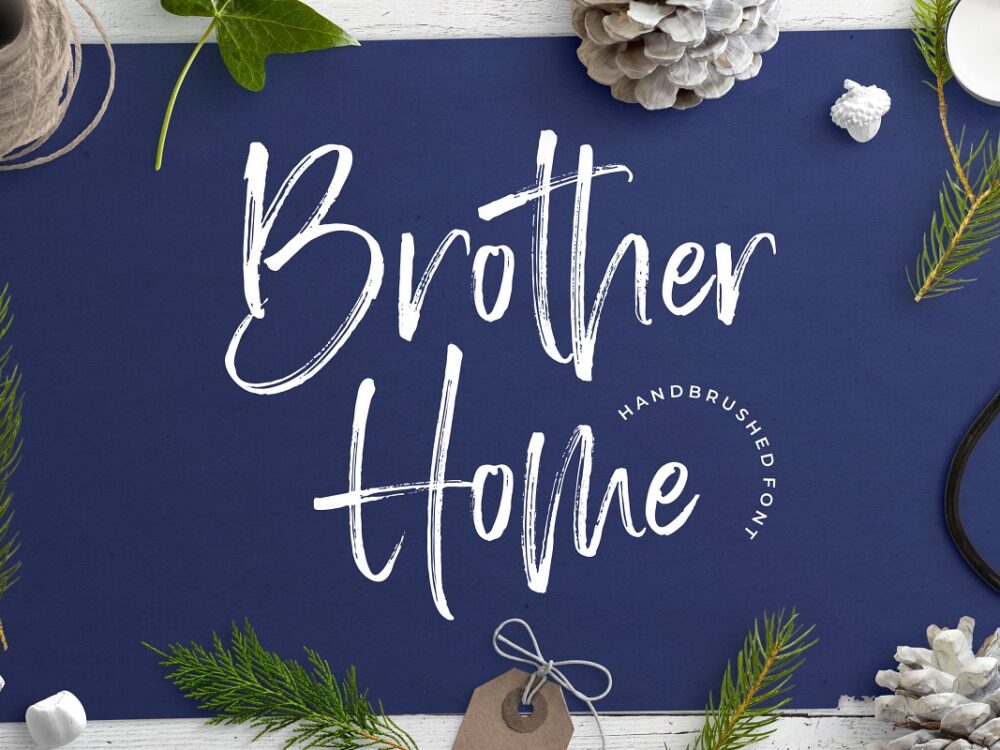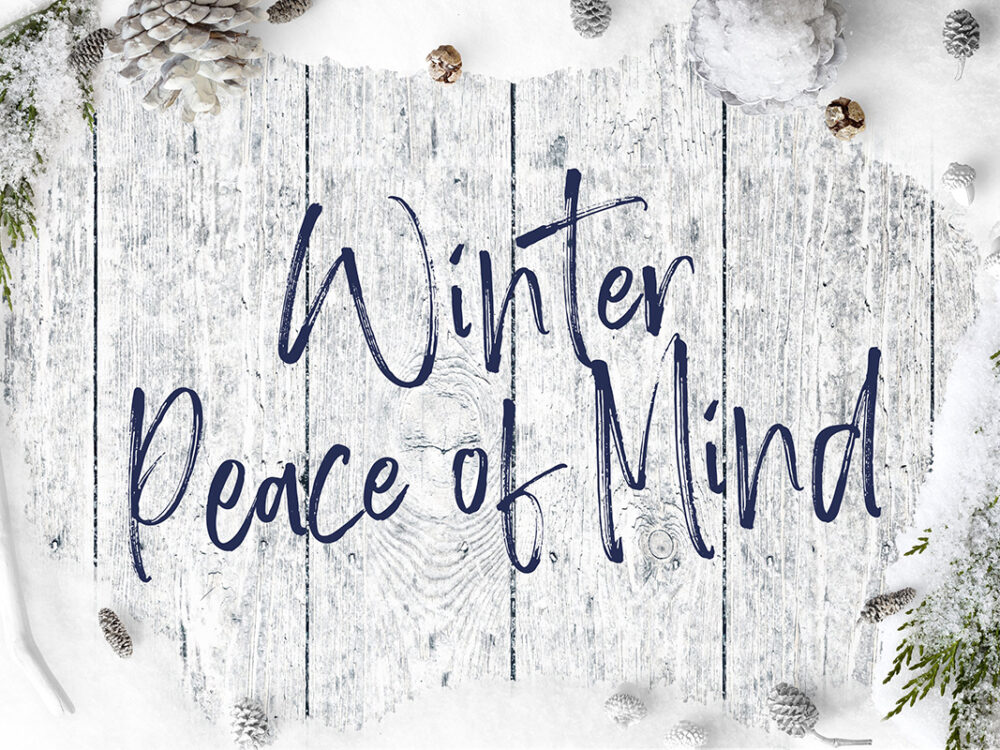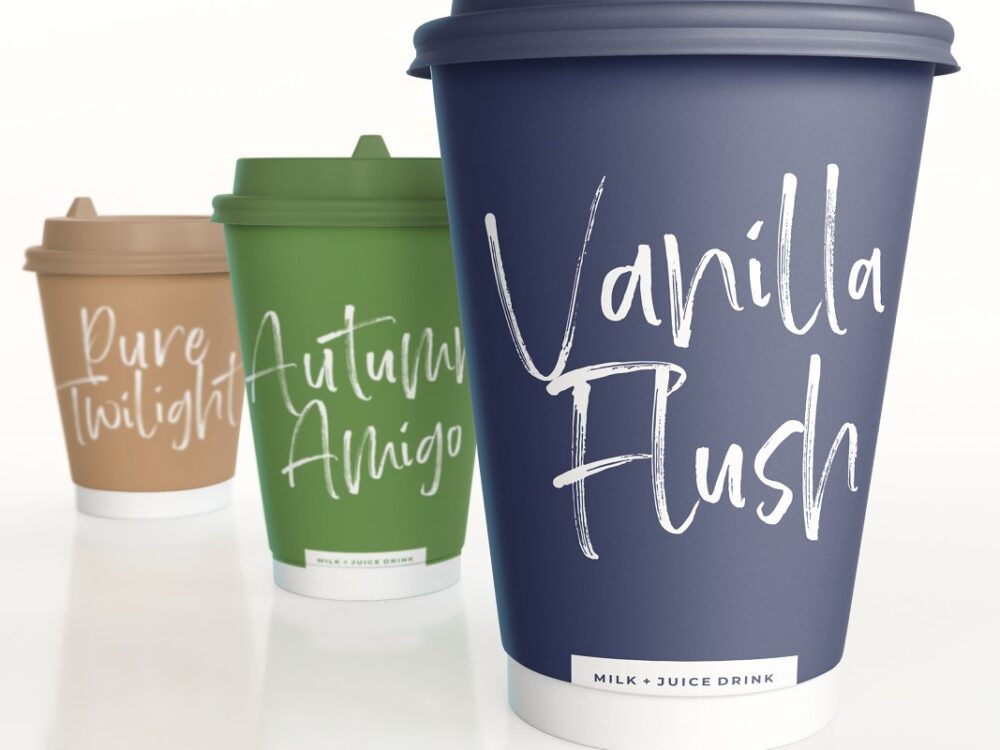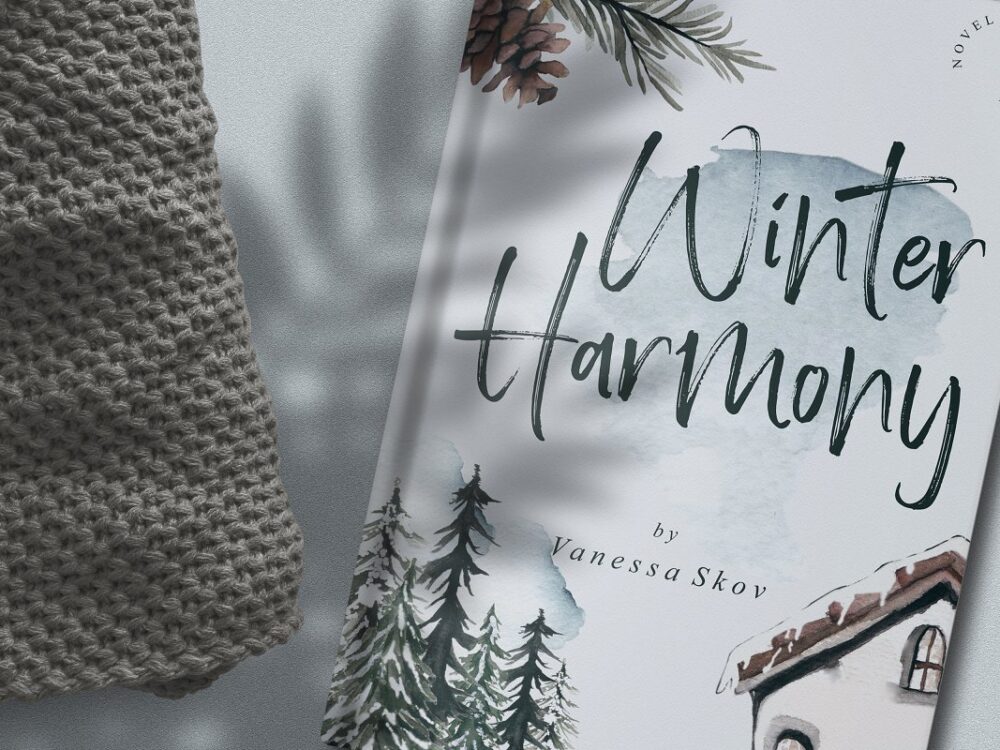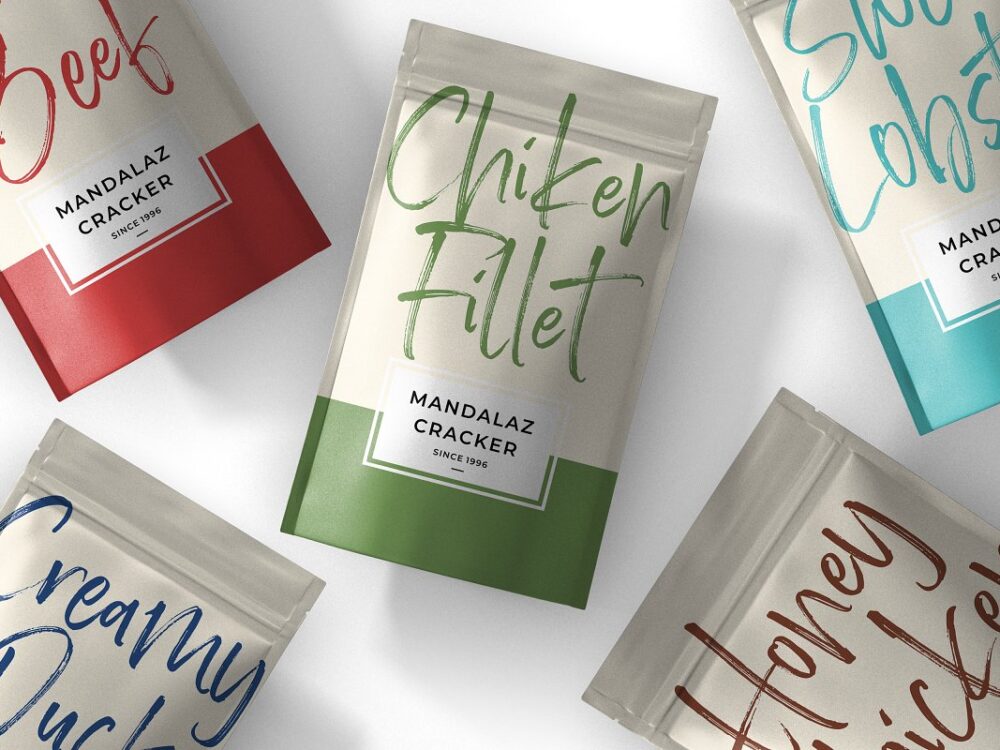
Free Brother Home Font
Free Brother Home Font is a brush script font. The modernity and uniqueness of this font will help you brighten up any design project. From logo designs to posters and decals, this font will bring freshness to any of your creative flights.